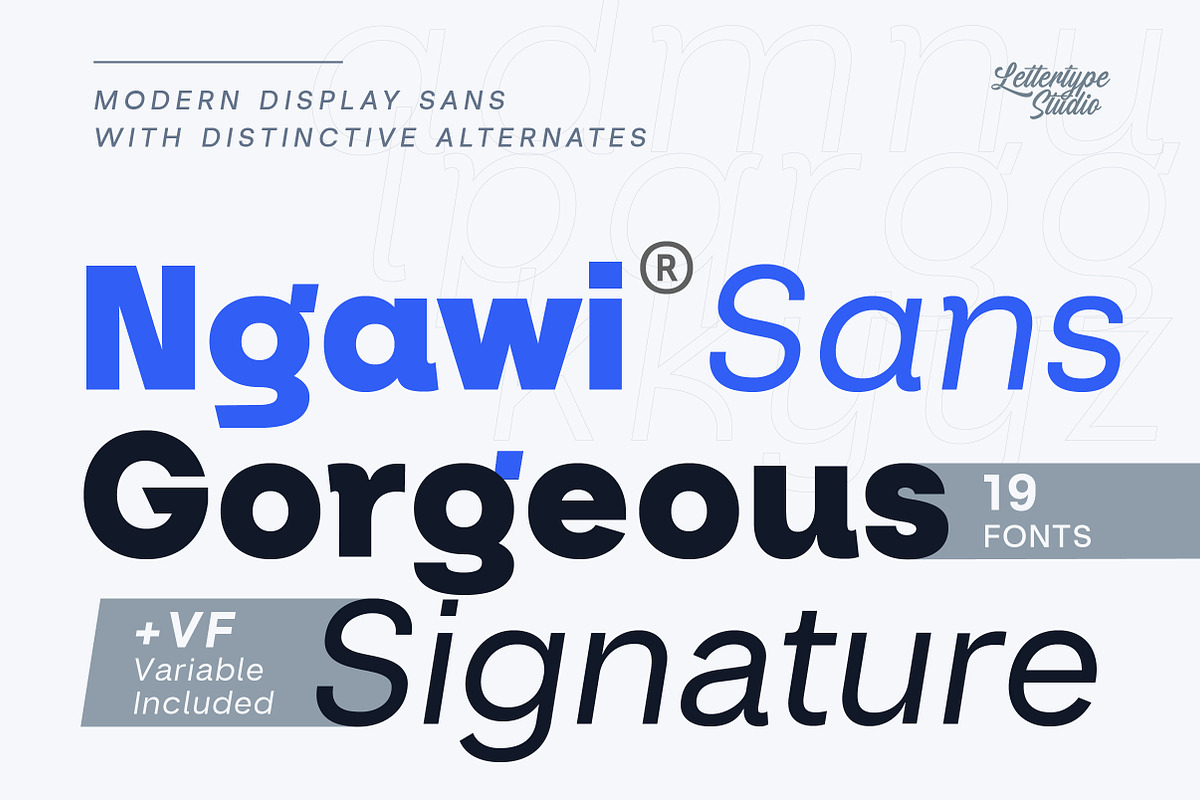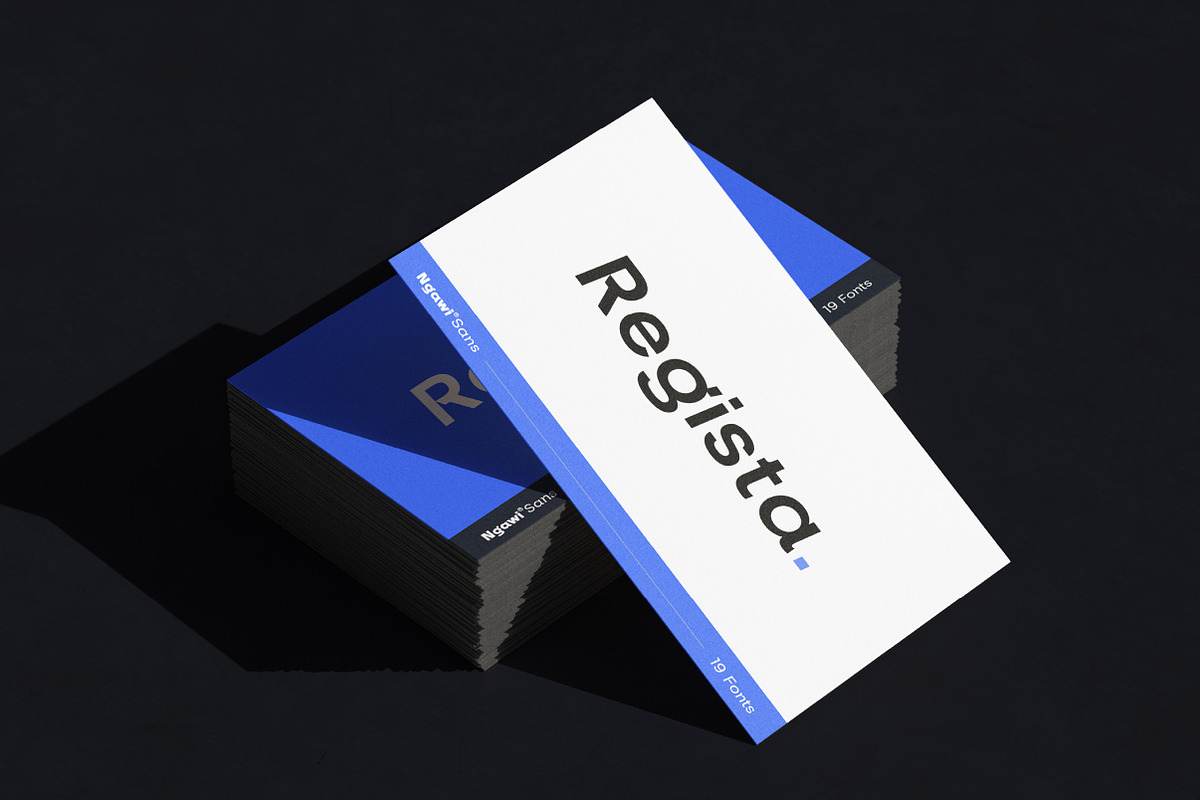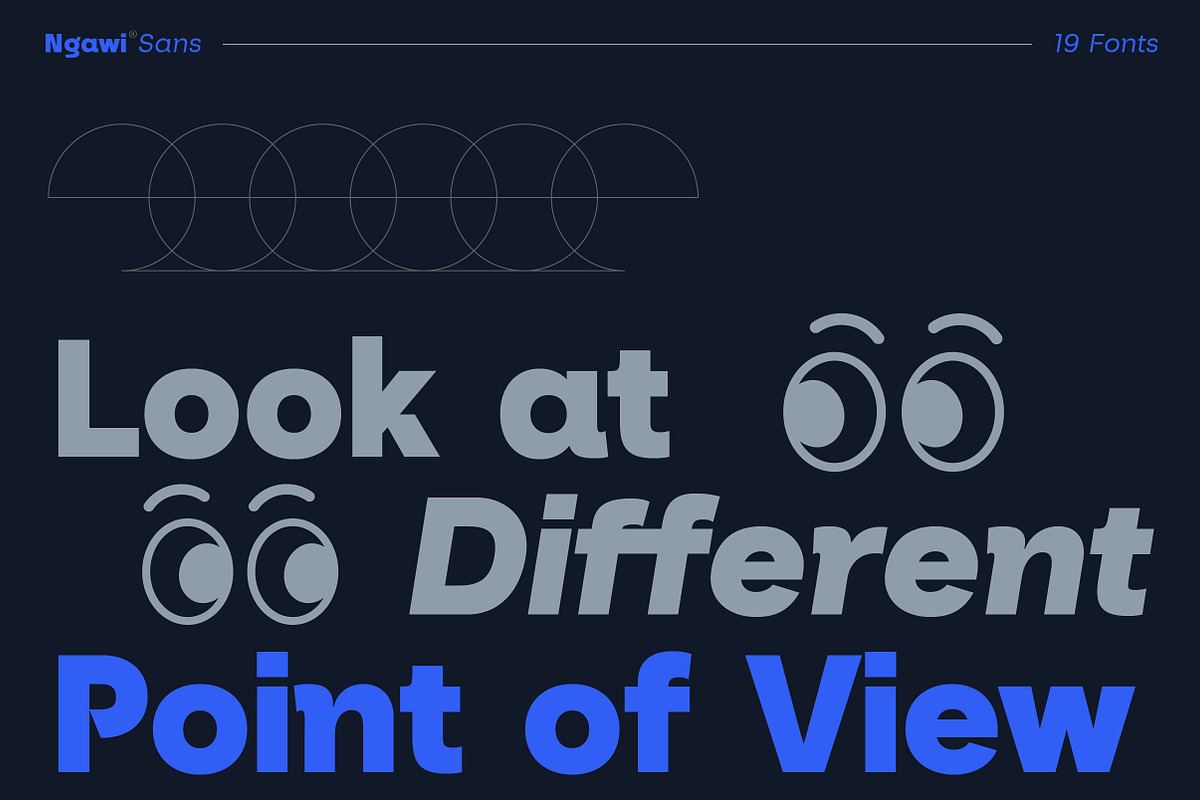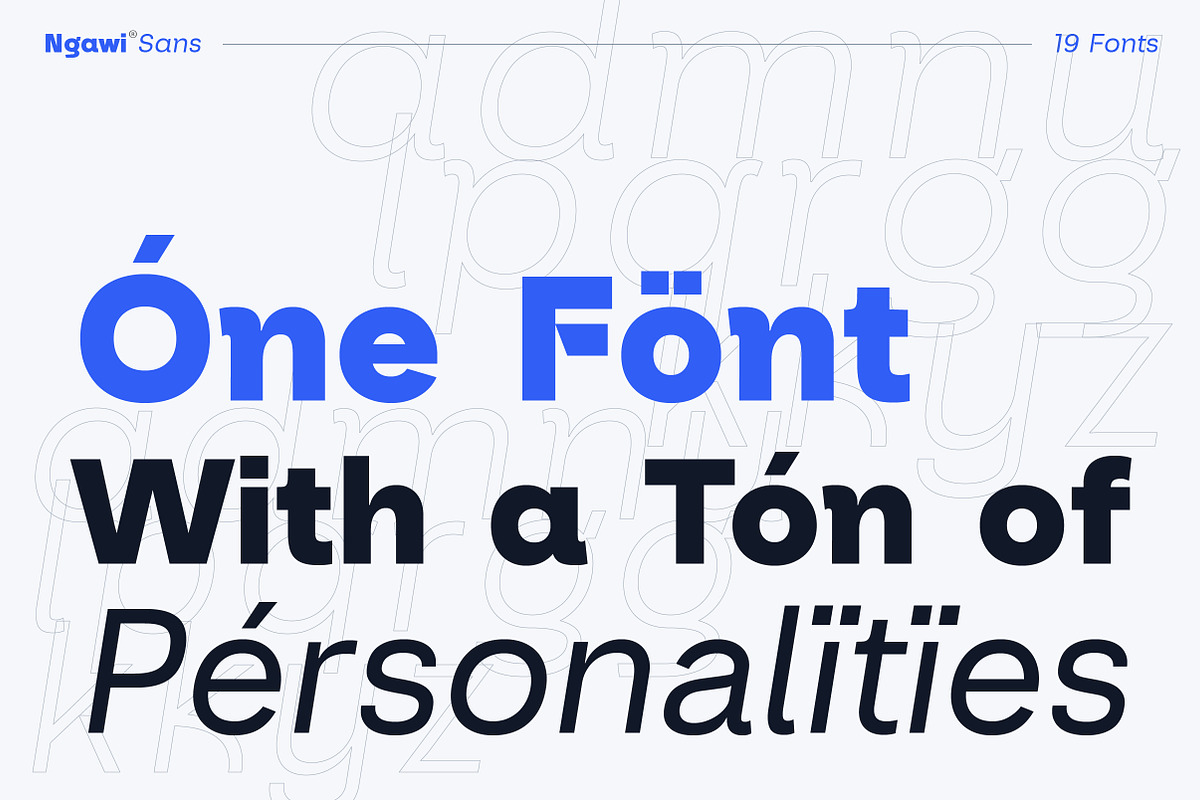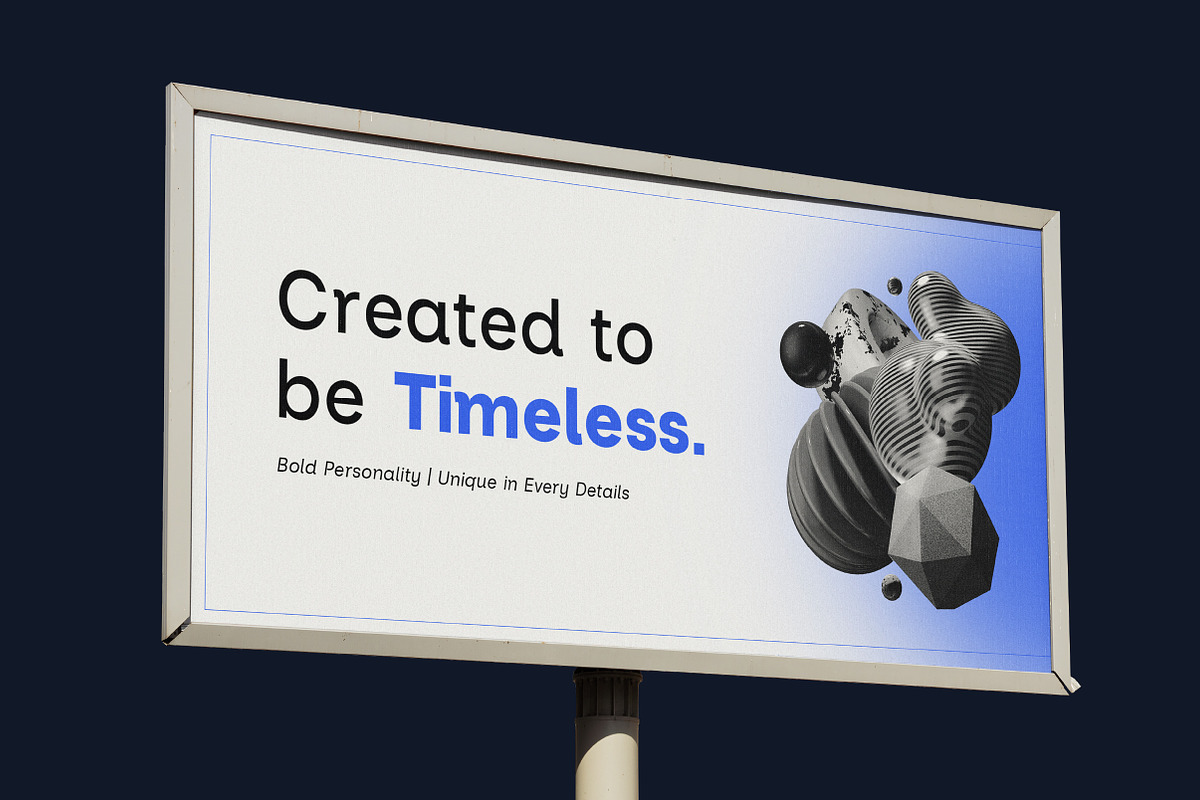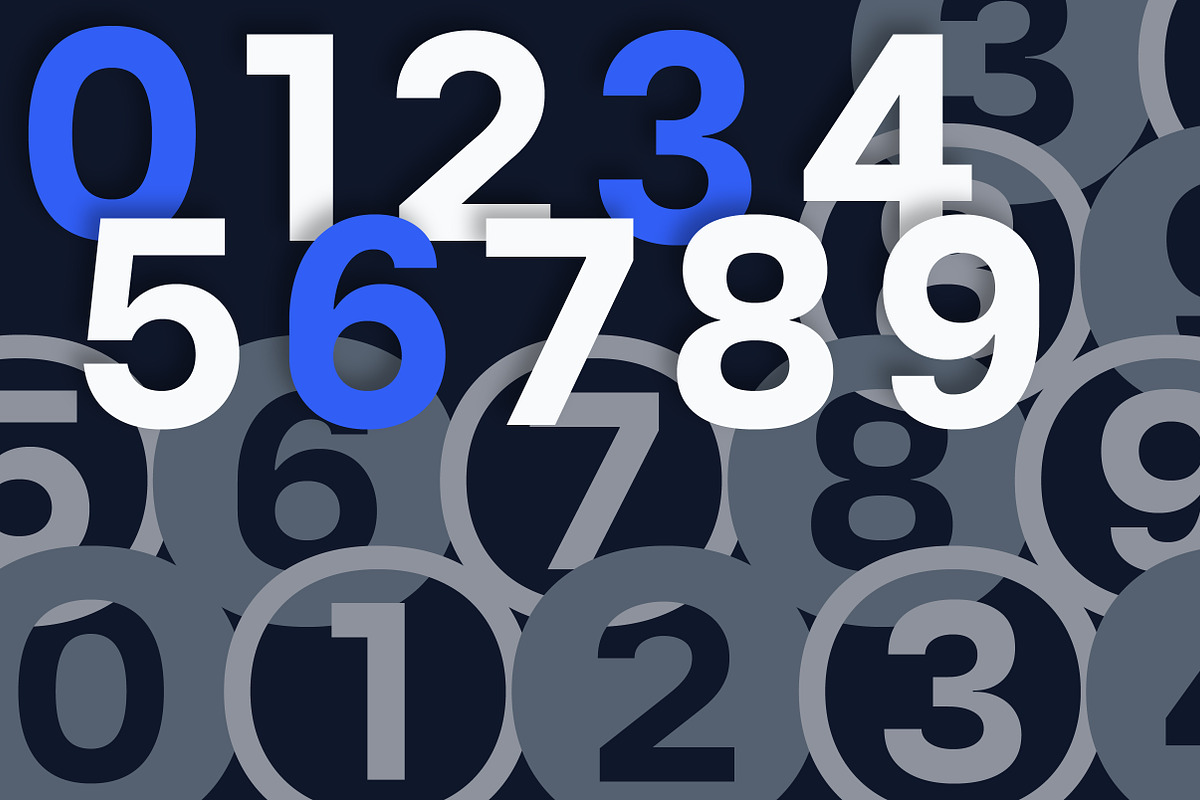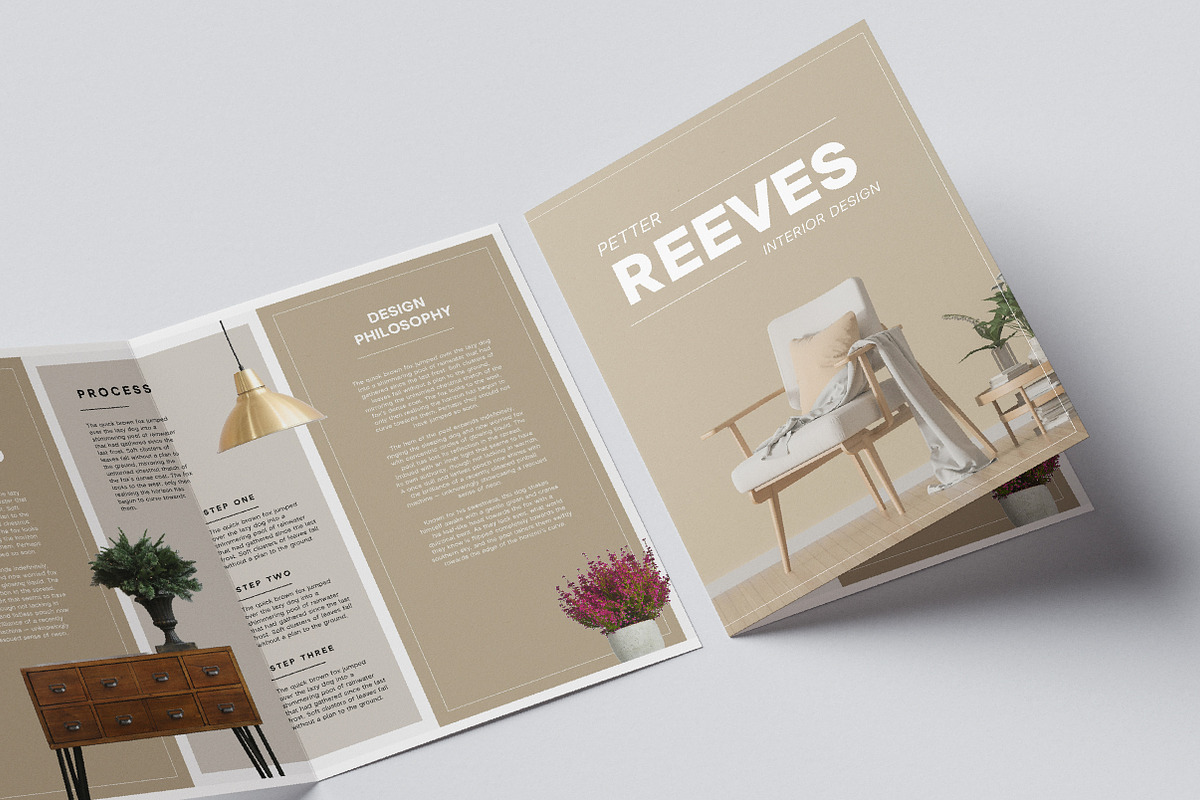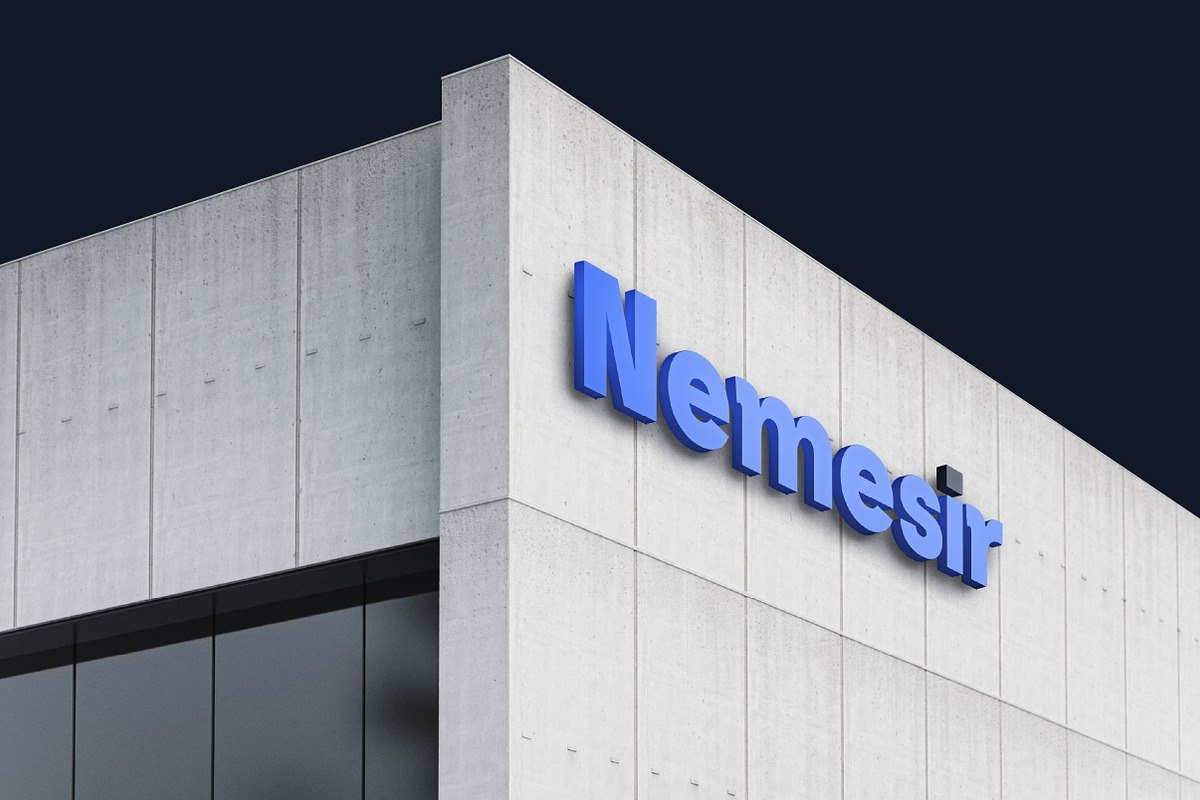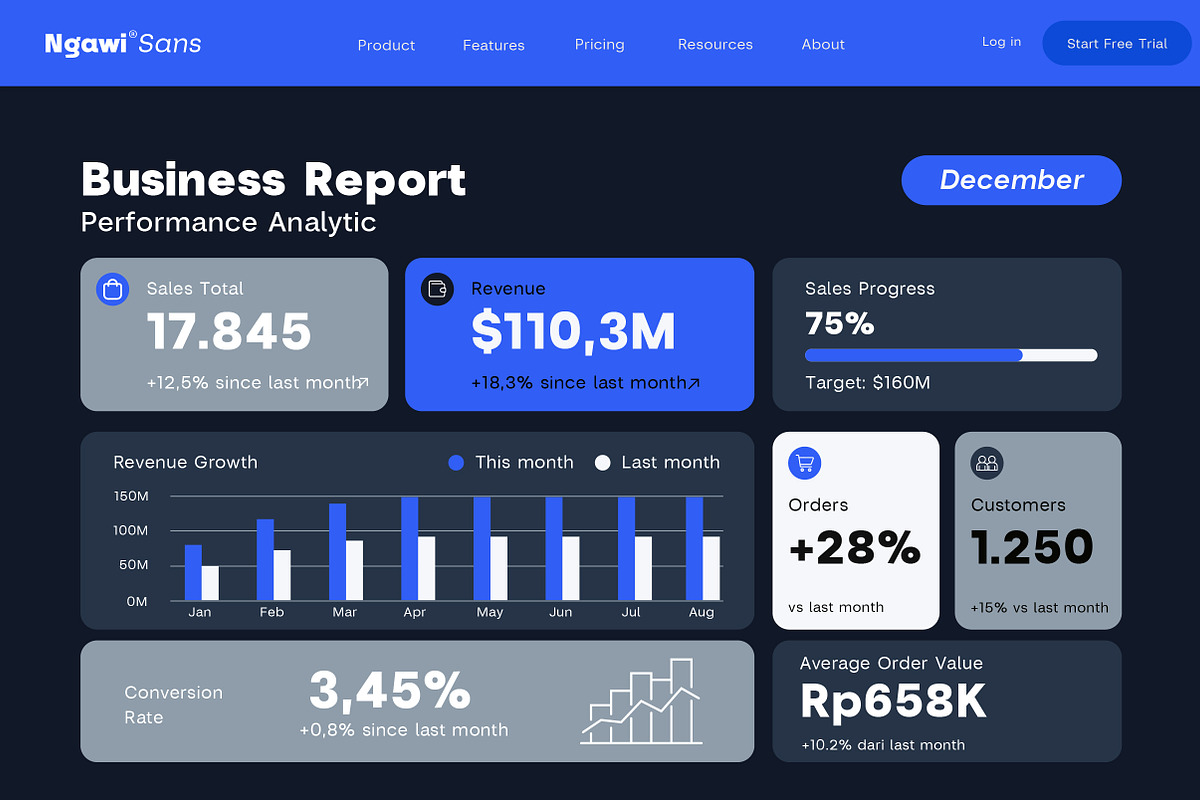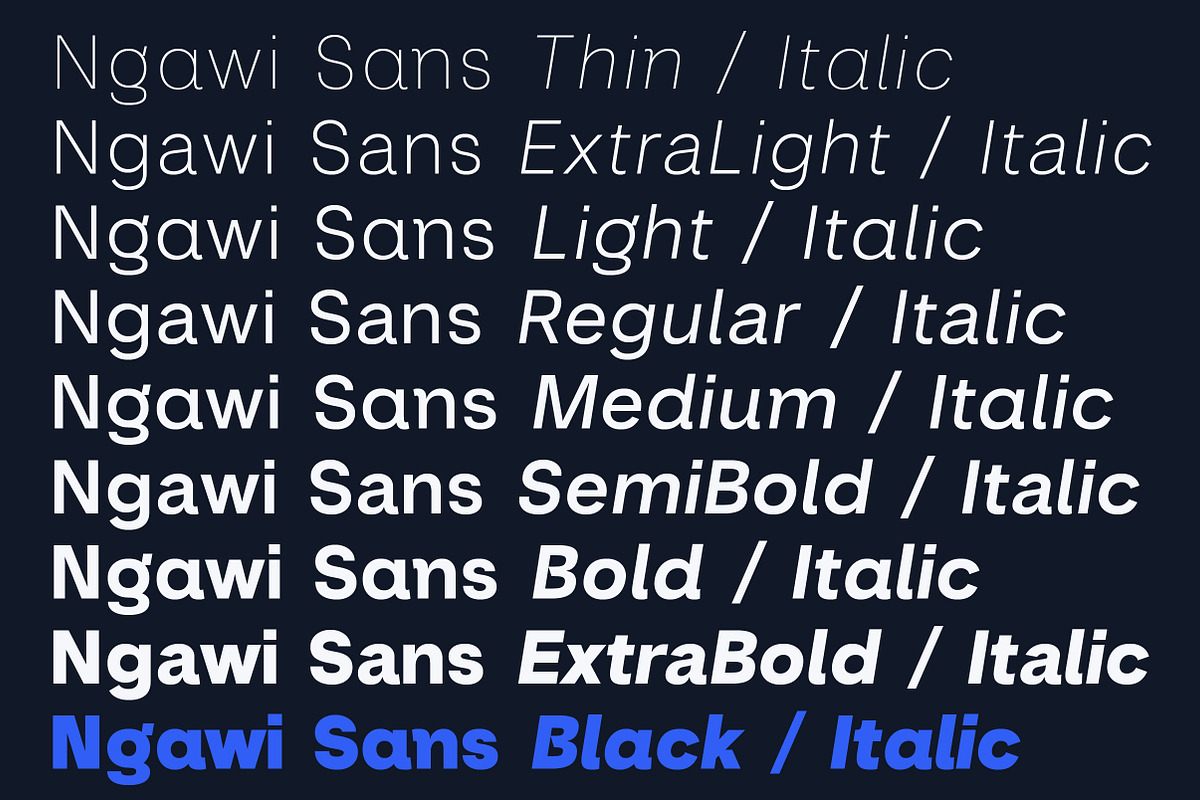
Ngawi Sans is a contemporary display sans family designed to balance a clean, modern structure with distinctive character. The family includes 9 weights from Thin to Black, each available in Upright and Italic, giving you 18 static styles plus 1 Variable Font version. Its balanced construction makes it versatile across branding, editorial design, fashion, packaging, signage, digital interfaces, campaigns, and large-scale display typography.
The defining feature of Ngawi is its two-version system. The standard Ngawi keeps its more distinctive letterforms within the alternate glyphs, giving designers a cleaner and more controlled default style while still providing expressive options. Ngawi Display reverses that relationship, making those distinctive forms the primary characters while keeping the conventional forms available as alternates. Both versions include the same 18 static styles and Variable Font, giving you two different approaches to the same typographic character.
Ngawi Sans Features:
Upright & Italic
Branding & Visual Identity
Editorial & Publishing
Fashion & Lifestyle
Packaging & Advertising
Web & Digital Design